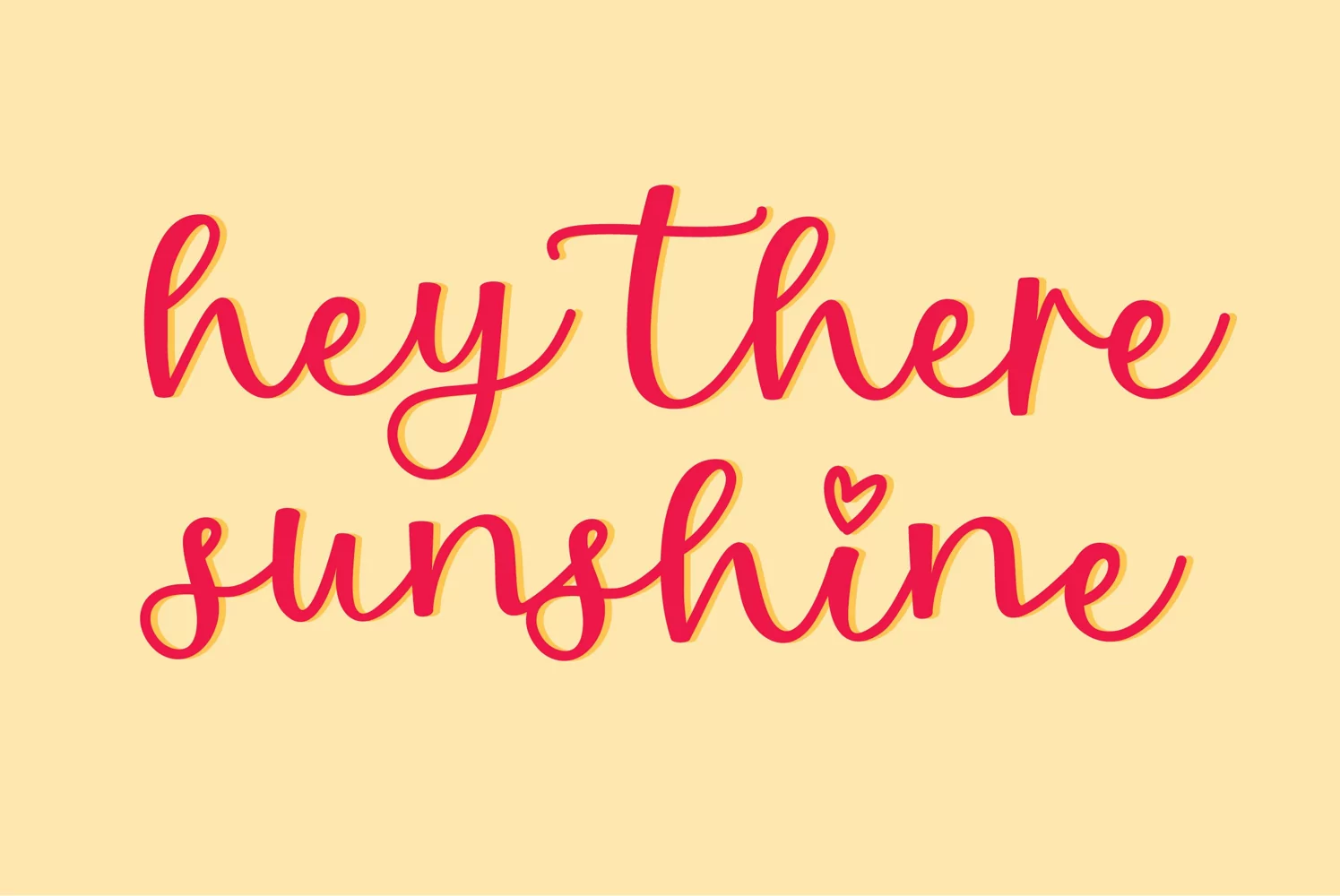
That Christmas is a super playful calligraphy font, hand crafted specially for all your Christmas designs!
From quotes, invites, greetings to seasonal branding, this font will soon become to go-to.
That Christmas comes in two styles: That Christmas Regular which is a bounce calligraphy script and a Trinket verions with hanging ornaments to add even more charm to your festive designs.